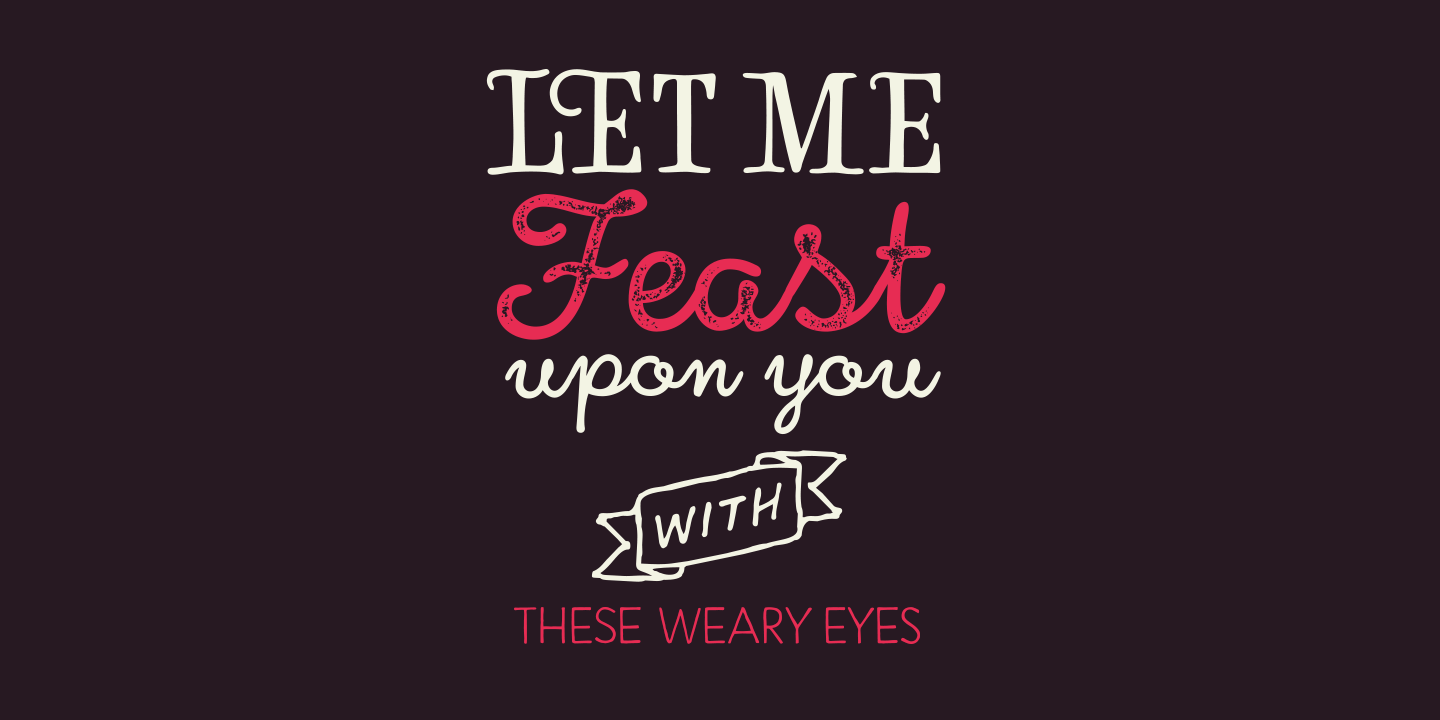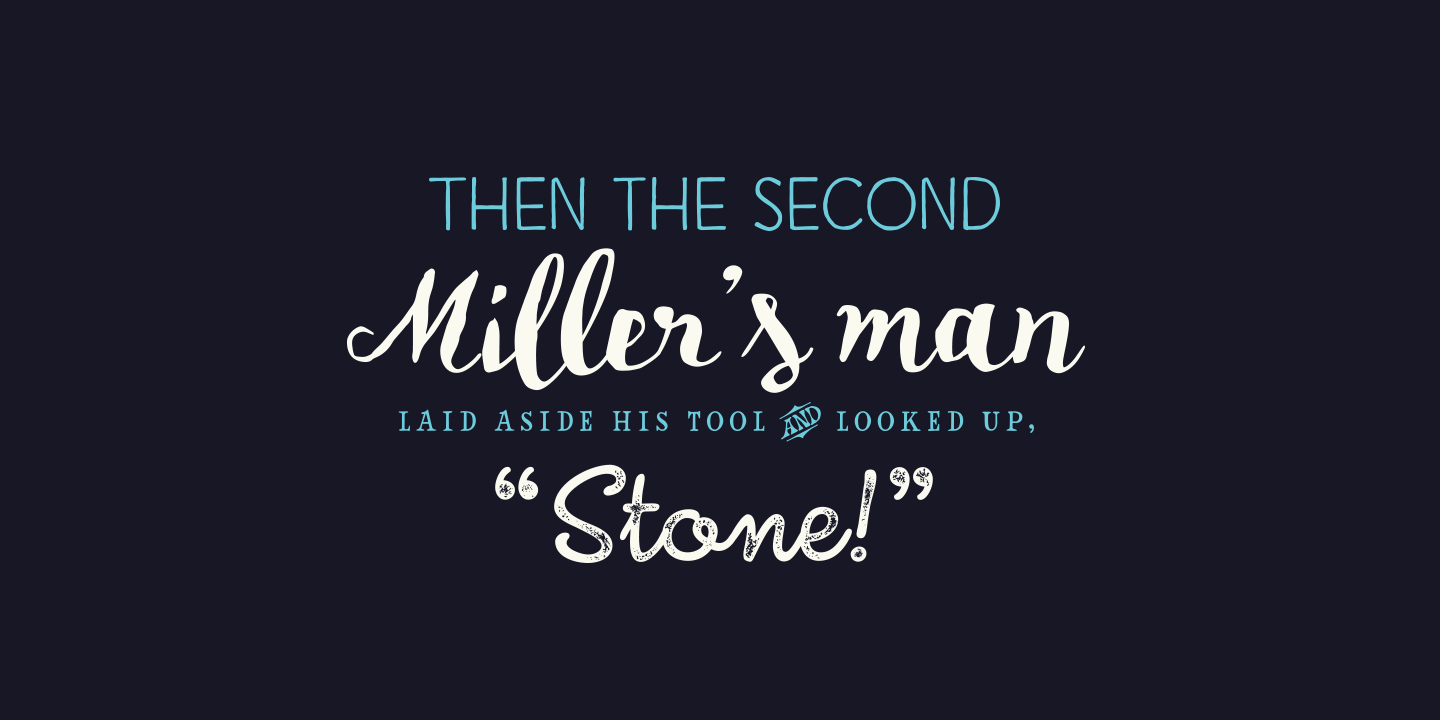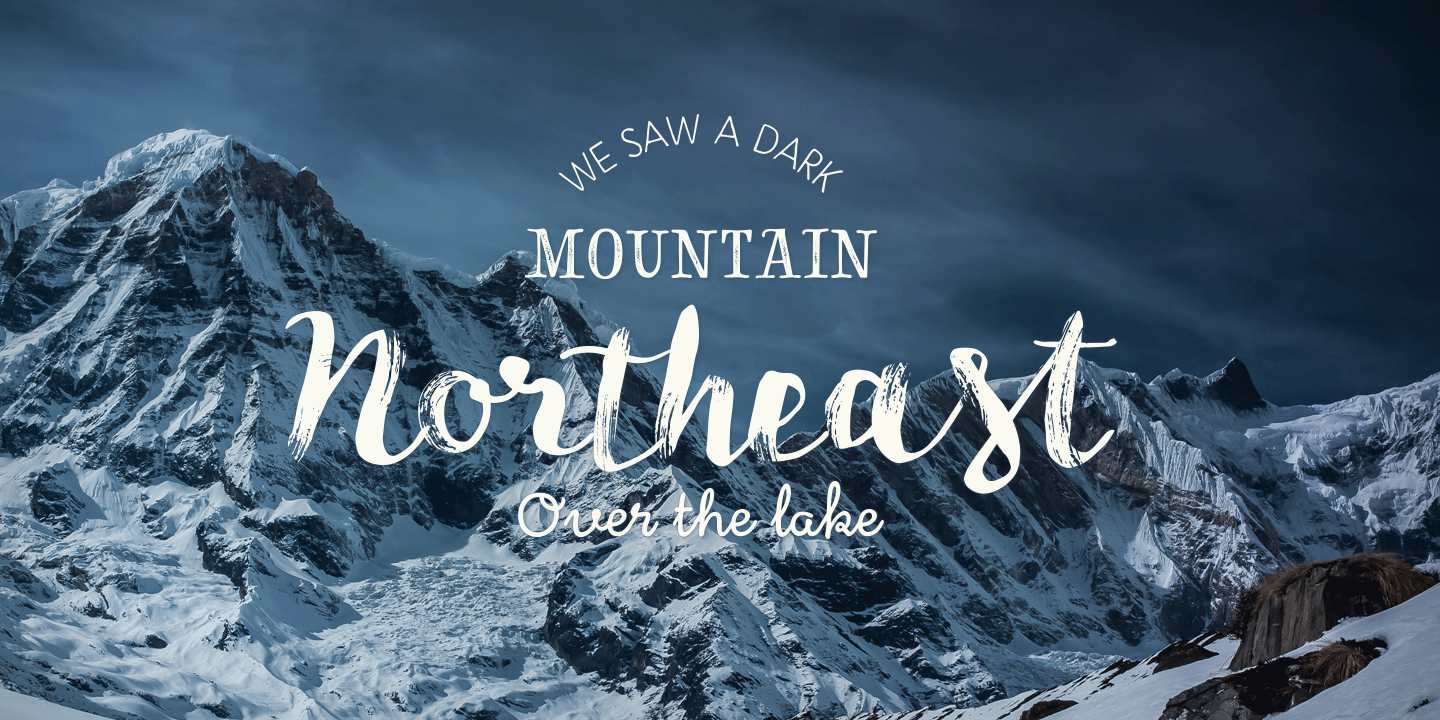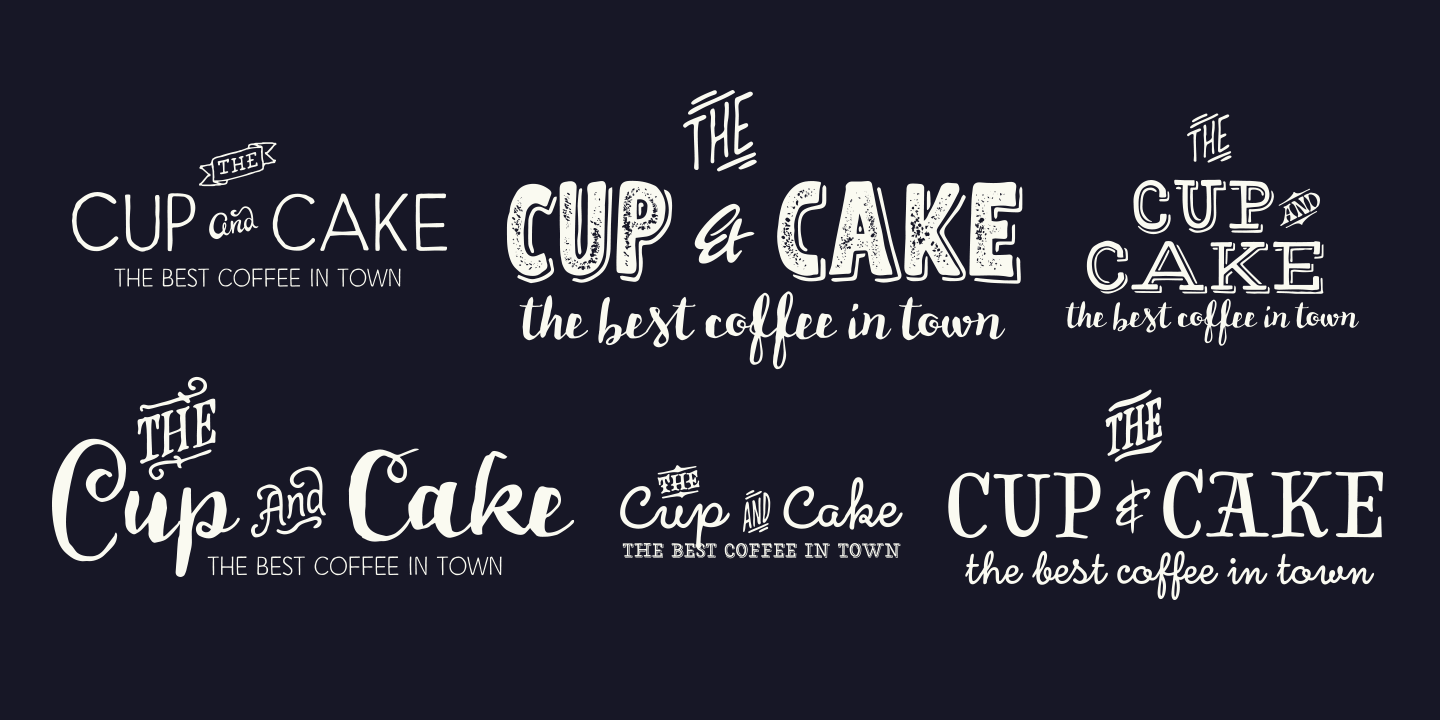
HMS Gilbert is a hand drawn collection of fonts designed to play perfectly together. HMS Gilbert contains seven different fonts, five of which also have texturised versions of them. In addition to fonts there is also Catchwords and Ornaments -sets of…